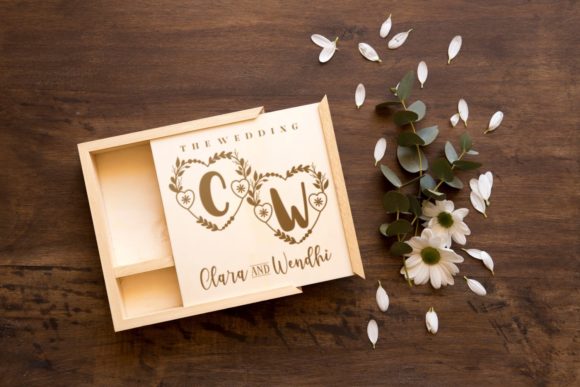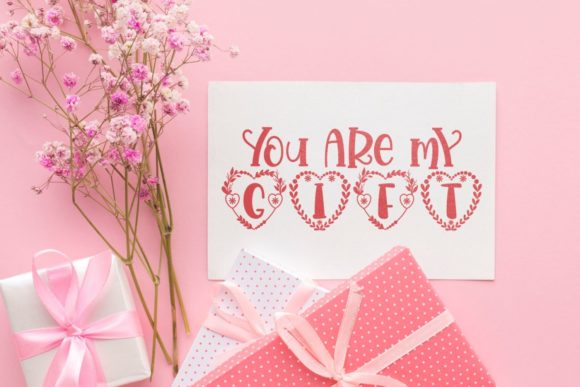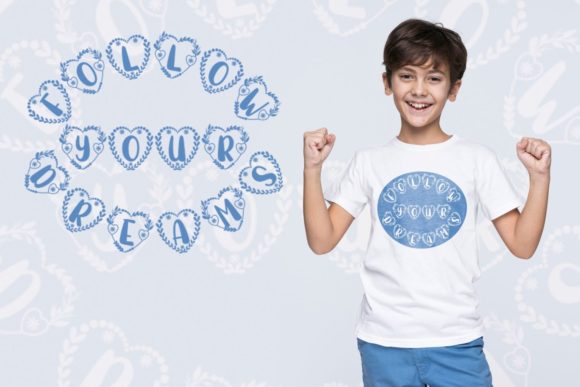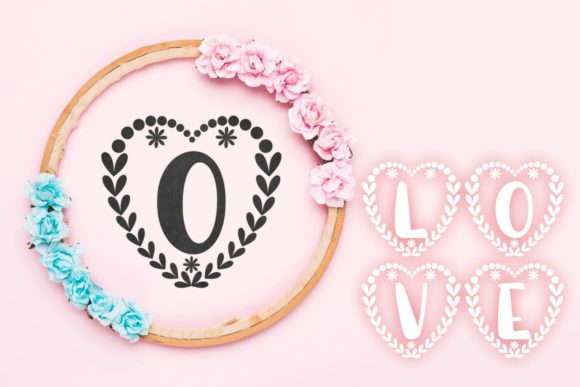
Introduction to Old Love Font
Old Love is a splendid decorative font that can transform any of your lovely creations into romantic pieces of art.
Old Love is a splendid decorative font that can transform any of your lovely creations into romantic pieces of art!
Key Features of Old Love Font